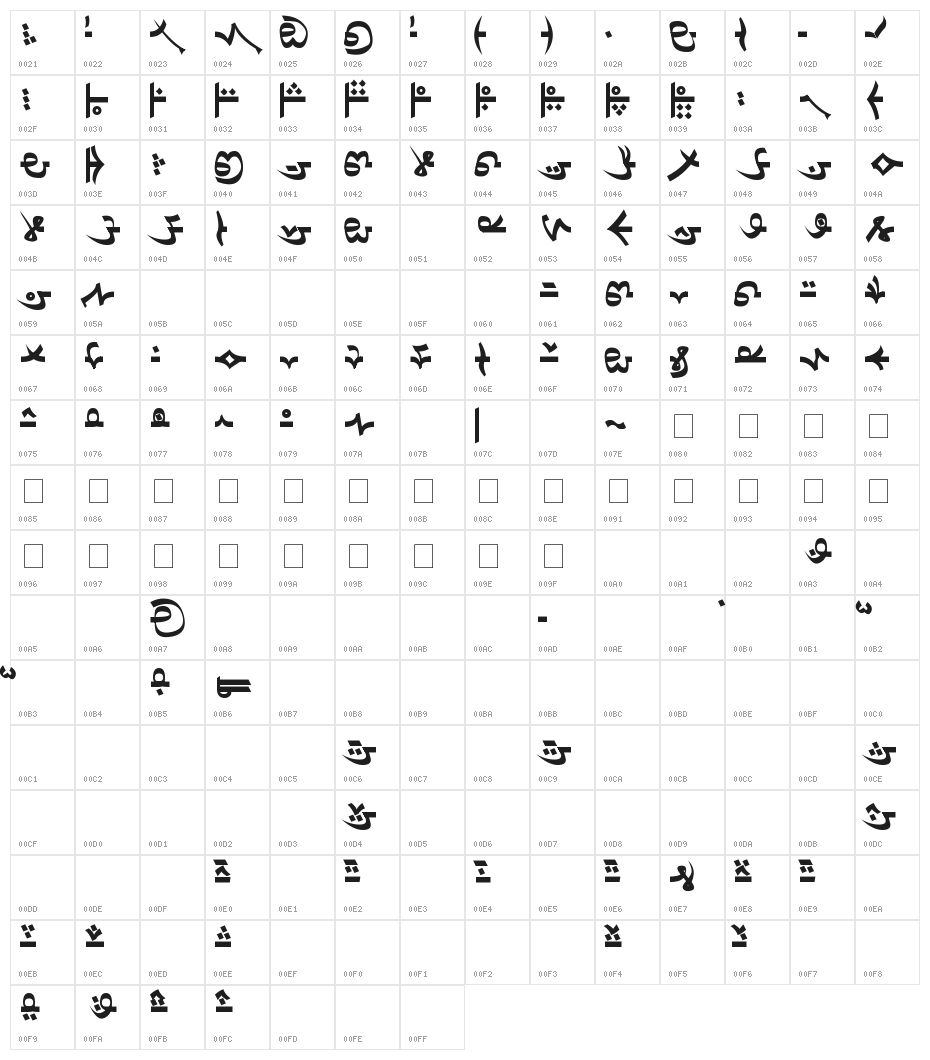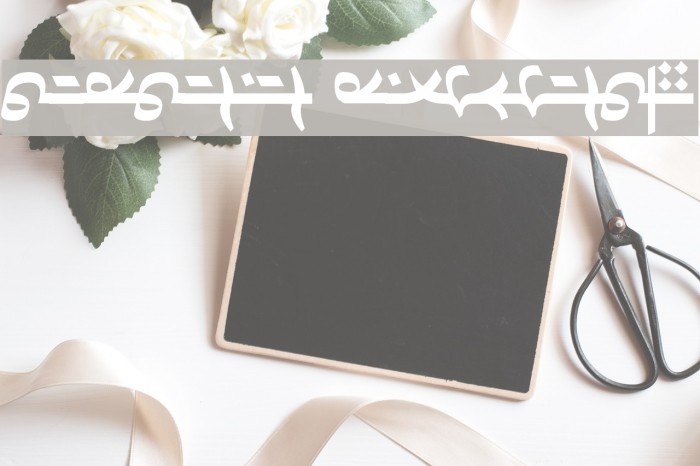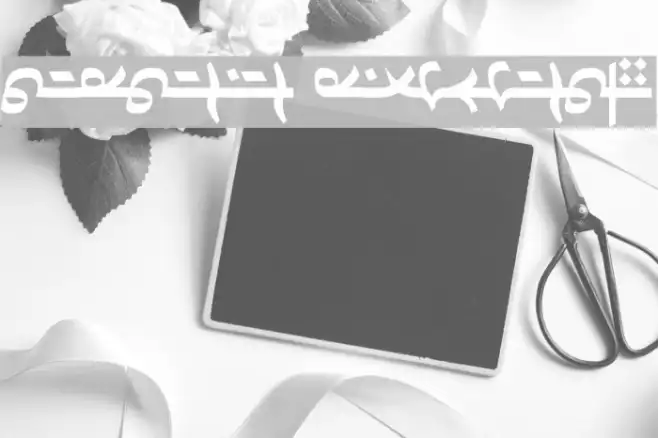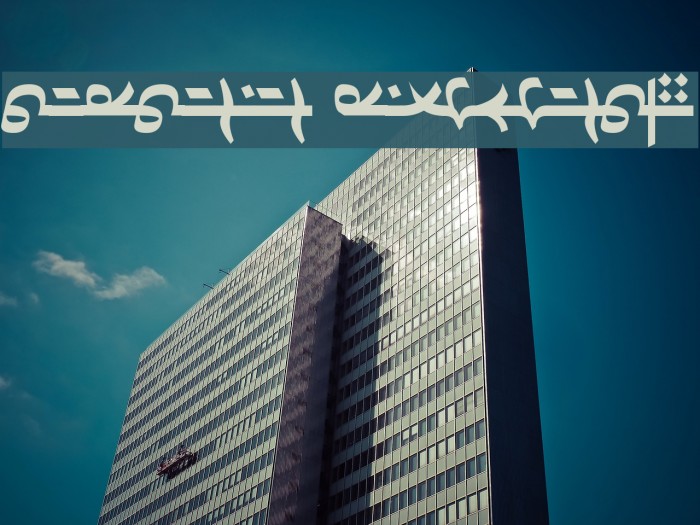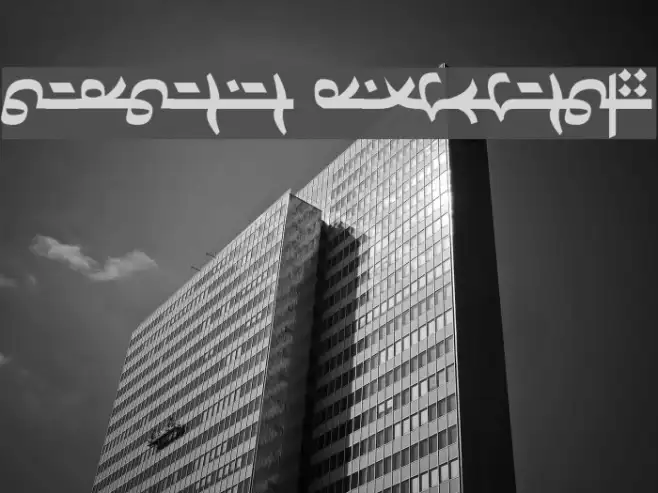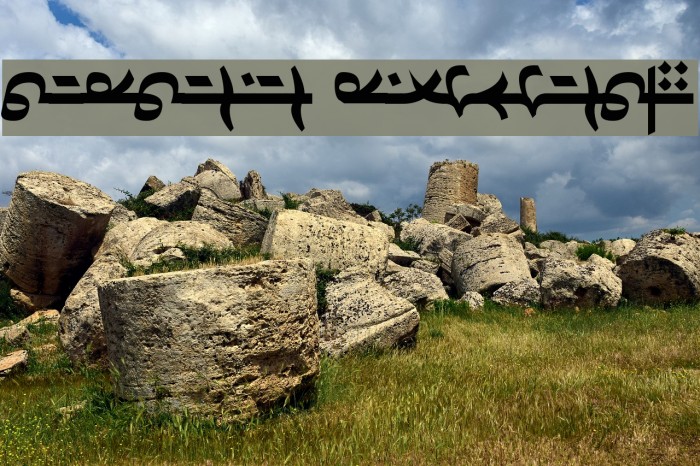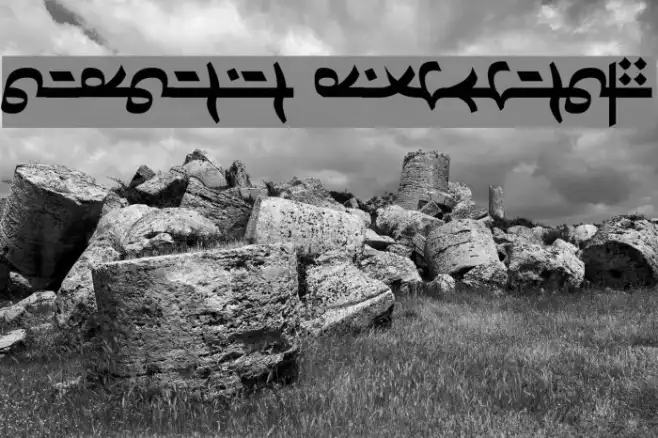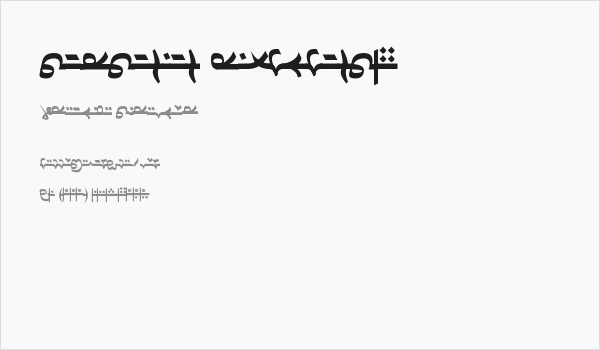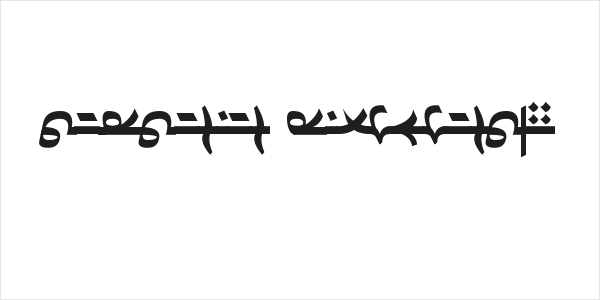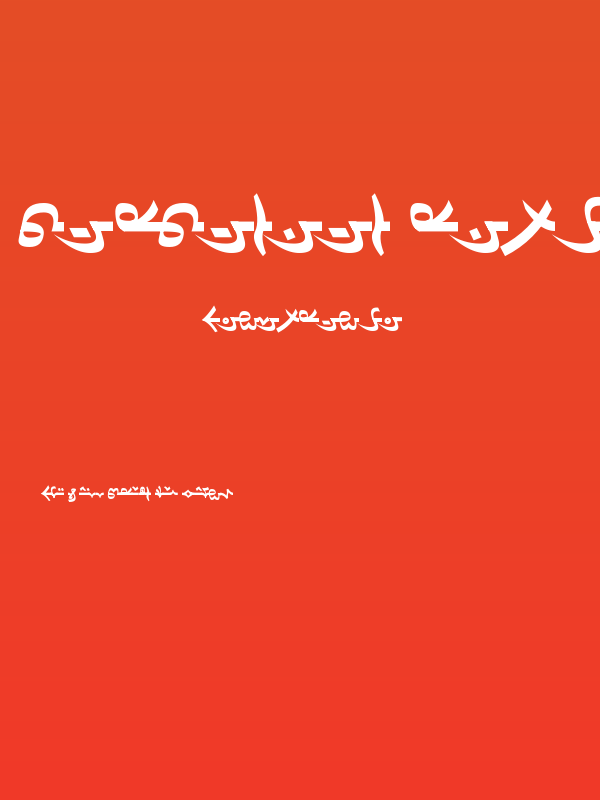
Dardanian Righthand4 Font
Dardanian Righthand4 Description
This font features a highly decorative and intricate design, characterized by its complex curves and sharp angles. The characters are interconnected with flowing lines, creating a sense of movement and fluidity. The overall appearance is bold and striking, with a unique style that combines elements of calligraphy and abstract art. The font's elaborate details make it stand out, offering a visually captivating experience. It is not suitable for body text due to its complexity but can be used effectively for artistic and creative projects.
| Use Case | Logos, Artistic designs, Posters |
| Proposed Projects | Ideal for artistic designs, logos, posters, and creative branding projects. |